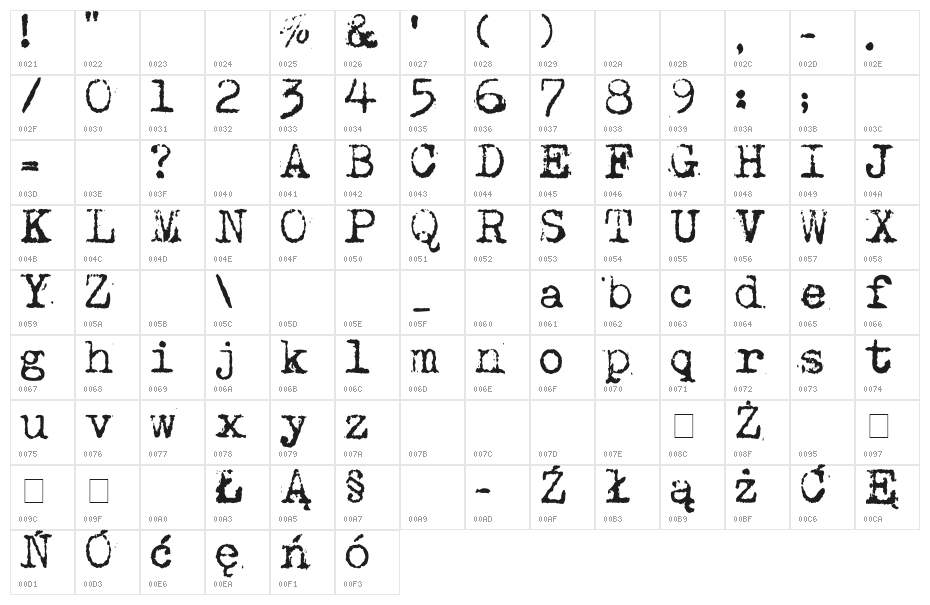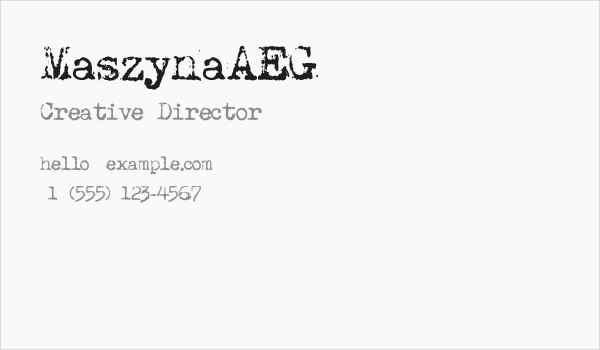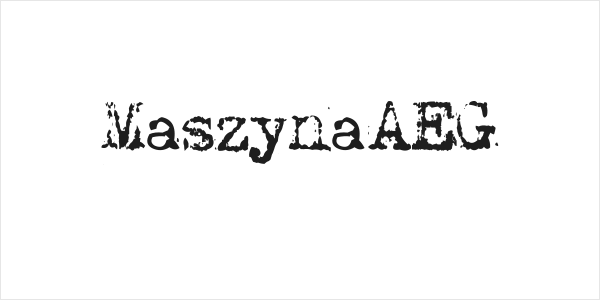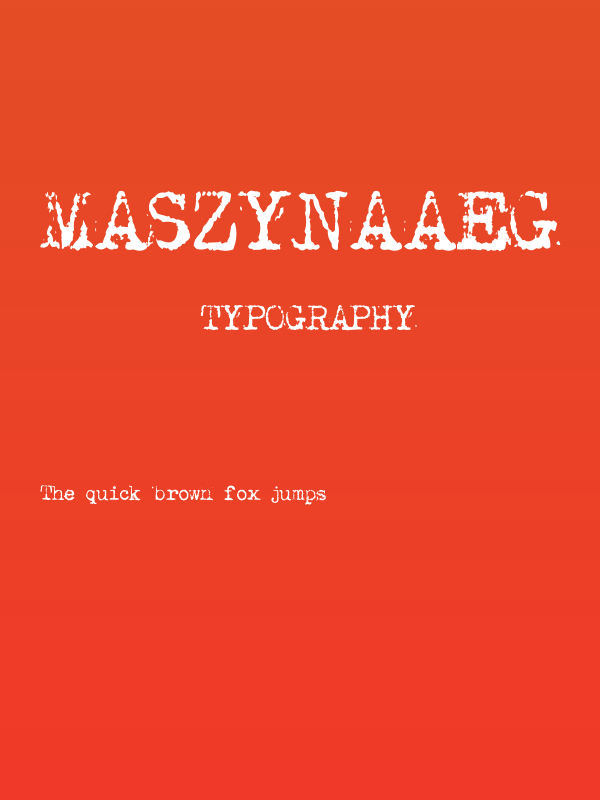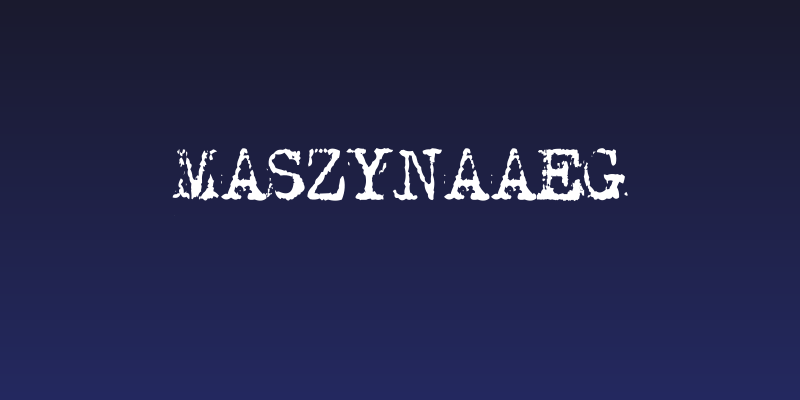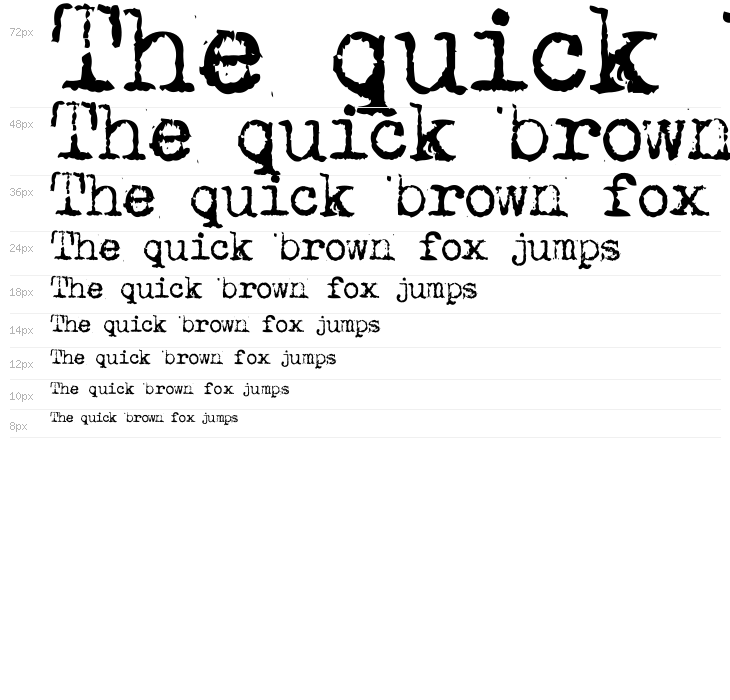
MaszynaAEG Font
MaszynaAEG Description
This font features a distressed, vintage typewriter style with a rough, textured appearance. Each character appears as if it has been stamped or printed with an old machine, giving it a unique, worn look. The uppercase and lowercase letters maintain a consistent style, with slightly irregular edges that add to the authentic, aged feel. The numerals and special characters follow the same design, ensuring a cohesive appearance across all elements. This font's distinct style evokes a sense of nostalgia and authenticity, making it ideal for projects that require a retro or industrial aesthetic.
| Proposed Projects | Ideal for vintage-themed designs, retro posters, industrial branding, and creative projects that require a nostalgic touch. |